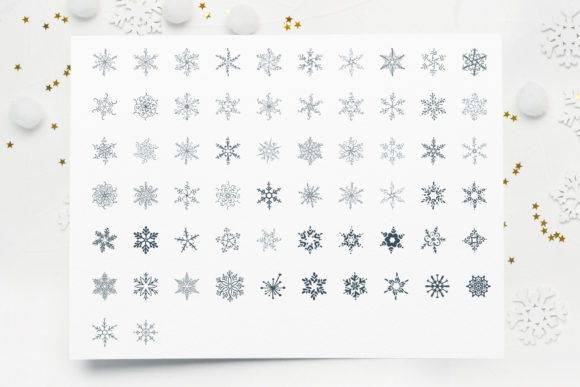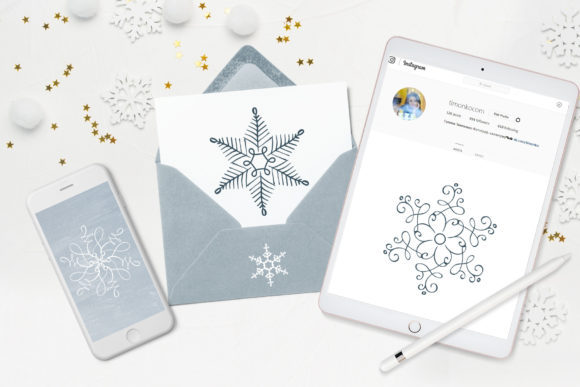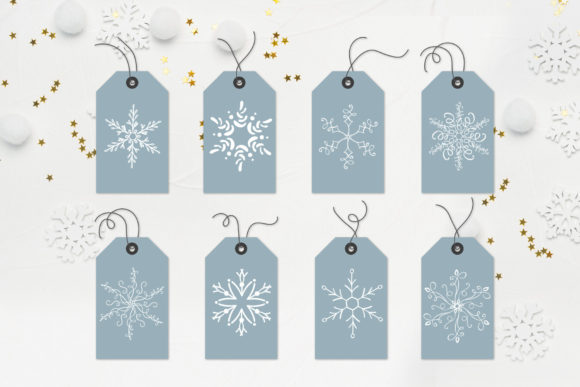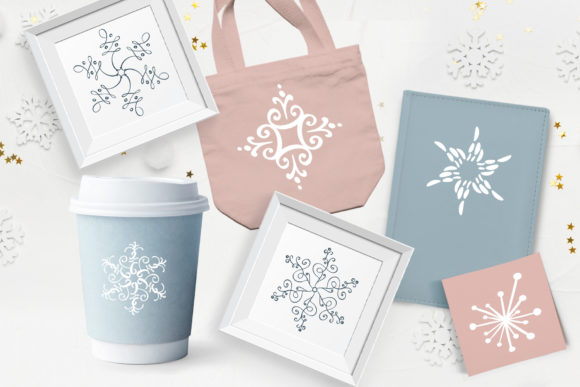
Christmas Snowflake Font
About Christmas Snowflake Font
“Christmas Snowflake” is a beautifully crafted and intricately detailed dingbats font that captures the essence of the holiday season. With its delicate snowflake designs, this font is a perfect addition to your fonts’ library, capable of enhancing any creative project.
The unique and intricate snowflake designs offered by “Christmas Snowflake” can add a touch of elegance and charm to a wide range of designs. Whether you’re creating holiday-themed greeting cards, festive invitations, winter-themed posters, or any other project, this font can elevate your creations and evoke the magical atmosphere of Christmas.
The versatility of “Christmas Snowflake” allows you to explore various design possibilities. The snowflake symbols can be used individually as decorative elements, combined to create patterns, or even used as borders and dividers. This font offers endless creative opportunities to infuse your designs with a sense of winter wonder.
Additionally, “Christmas Snowflake” can be applied to both digital and print media, making it suitable for a wide range of projects. From website designs and social media graphics to packaging designs and holiday decorations, this font can bring a touch of holiday spirit to any medium.
When utilizing “Christmas Snowflake,” consider the overall composition and balance of your design. Experiment with different sizes, alignments, and arrangements of the snowflake symbols to achieve the desired visual impact. Don’t be afraid to incorporate other design elements, such as typography and color, to complement and enhance the snowflake motifs.
In conclusion, “Christmas Snowflake” is a delicate and highly detailed dingbats font that can elevate any creative project, especially those with a holiday or winter theme. Its intricate snowflake designs add a touch of elegance and magic to your designs, making them truly stand out. Let your imagination run wild and explore the endless possibilities this font offers to create captivating and festive designs.